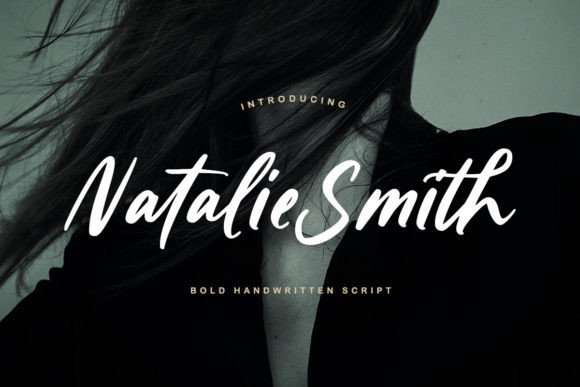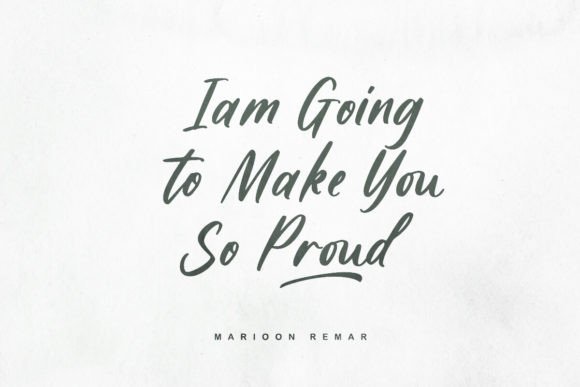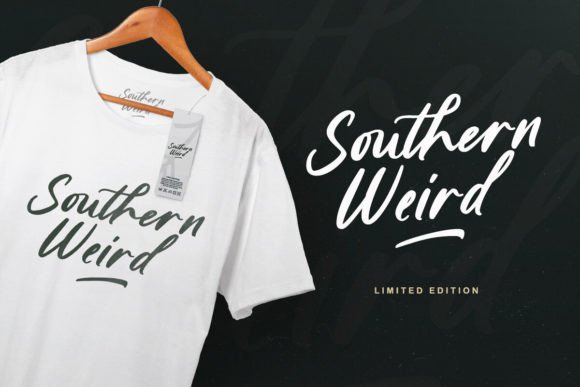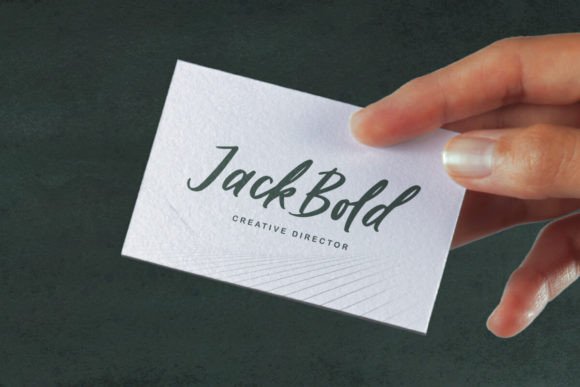
Natalie Smith Font
About the Natalie Smith Font
Explore the possibilities with Natalie Smith Font, a font that offers both beauty and functionality. Natalie Smith is a charming script font imbued with elegance and grace. Its fluid strokes and delicate curves evoke a sense of sophistication and romance. Perfect for invitations, branding, and elegant designs, Natalie Smith adds a touch of refinement and charm to any project, captivating audiences with its timeless allure.
Its elegant, flowing forms make it ideal for wedding invitations, logos requiring a touch of sophistication, and short-form marketing materials such as brochures or social media graphics. However, its delicate nature makes it unsuitable for body text or lengthy paragraphs, and its low x-height limits readability in smaller sizes or UI applications.
Pairing Natalie Smith with a clean sans-serif like Montserrat for body copy provides excellent contrast and readability. For a more modern feel, consider pairing it with a geometric sans-serif such as Futura. Alternatively, a classic serif like Garamond can enhance its timeless appeal.
The Natalie Smith font exudes a refined, romantic personality, best suited for brands projecting elegance, luxury, or a sense of classic beauty. Avoid using it for projects requiring a bold or highly contemporary aesthetic.
Natalie Smith Font Usage Examples
Natalie Smith Font Example